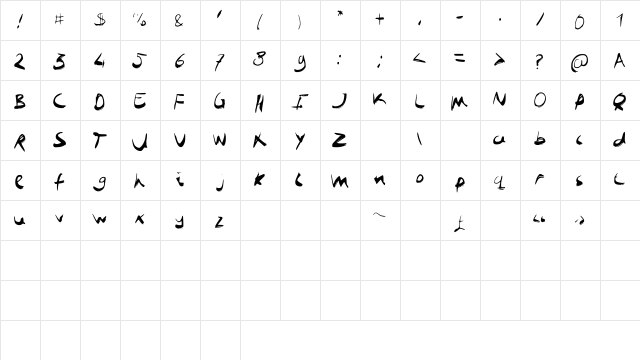
JobBoofKwast Medium
Design Context for JobBoofKwast Typeface
JobBoofKwast is a composed and adaptable typeface that performs quietly and consistently across a wide range of design contexts.